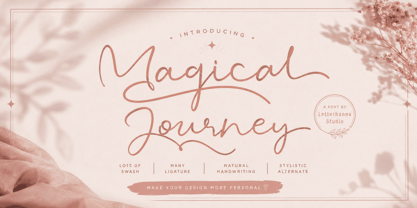
Magical Journey
by Letterhanna Studio
The Magical Journey Font Family was designed by Rinaldo Hasibuan and published by Letterhanna Studio. Magical Journey contains 1 styles.
"Magical Journey" is a captivating handwritten script font that invites you to embark on a whimsical adventure through its enchanting curves and graceful strokes. This font encapsulates the essence of imagination and wonder, as if each letter carries the secrets of a fantastical realm waiting to be explored.
Designers: Rinaldo Hasibuan
Publisher: Letterhanna Studio
Foundry: Letterhanna Studio
Design Owner: Letterhanna Studio